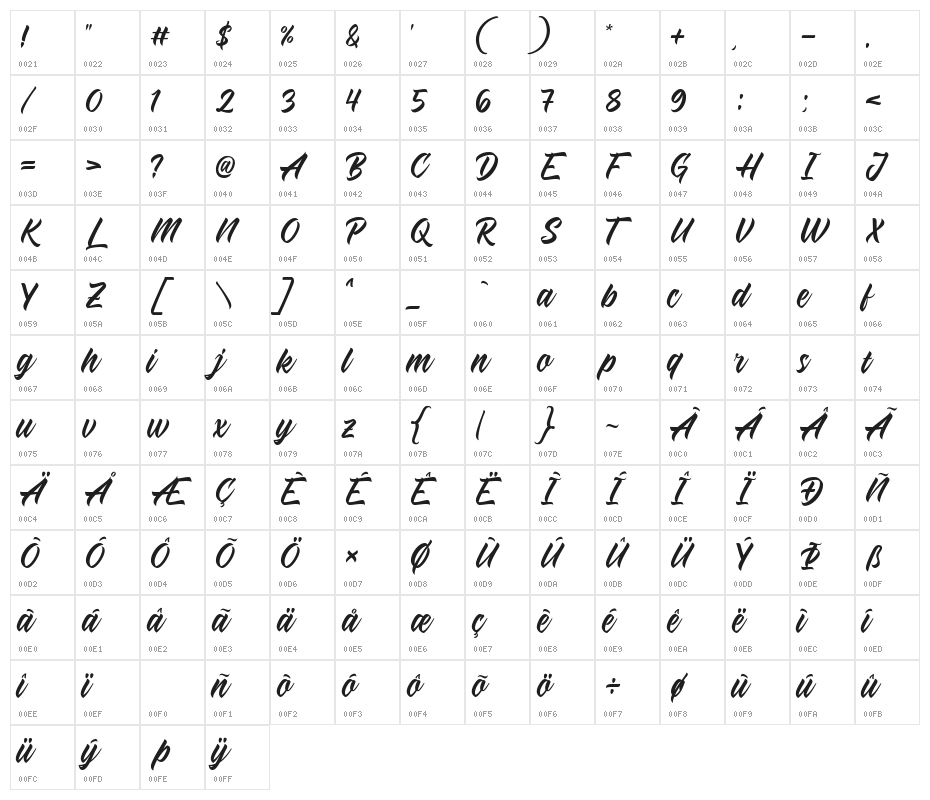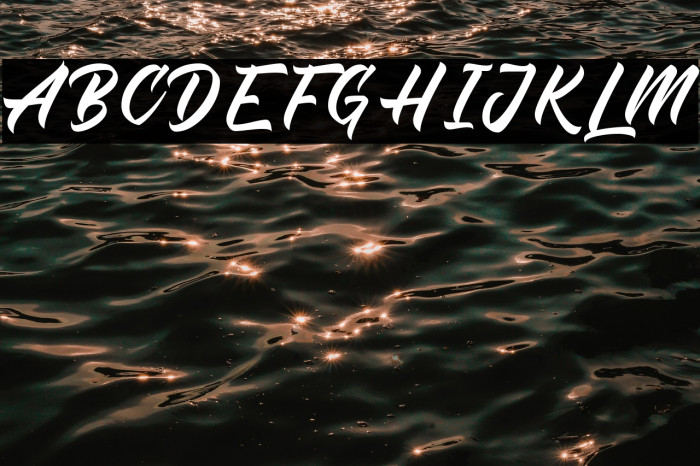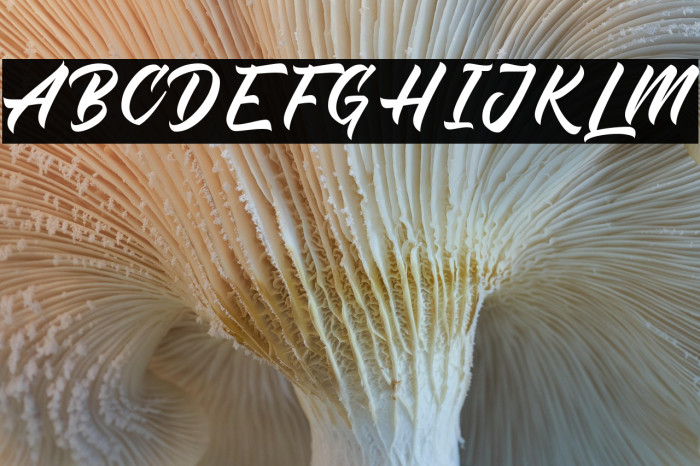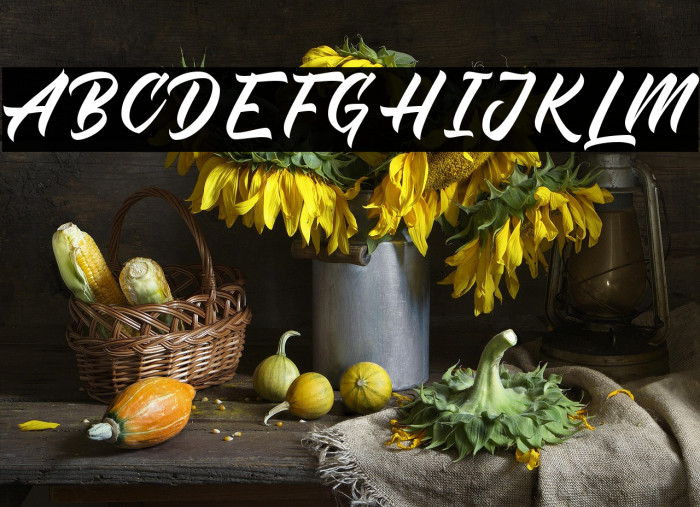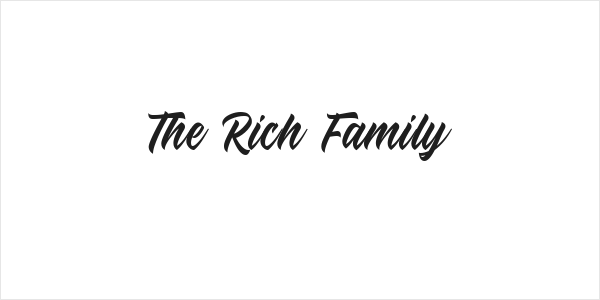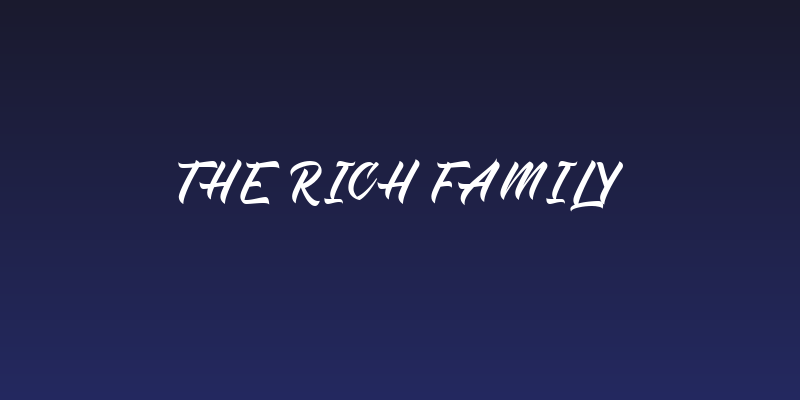
The Rich Family Font
The Rich Family Description
This font exudes a dynamic and energetic style with its bold, cursive script. The letters are fluid and connected, giving a sense of motion and elegance. The uppercase letters are slightly larger and more pronounced, while the lowercase letters maintain a consistent flow. The numerals are designed to match the cursive style, ensuring uniformity across all characters. Special characters are included, maintaining the same bold and flowing characteristics. This font is perfect for projects that require a personal touch or a sense of sophistication.
| Overall Style | Elegant and Dynamic |
| Proposed Projects | Ideal for wedding invitations, branding, logos, and elegant packaging designs. |